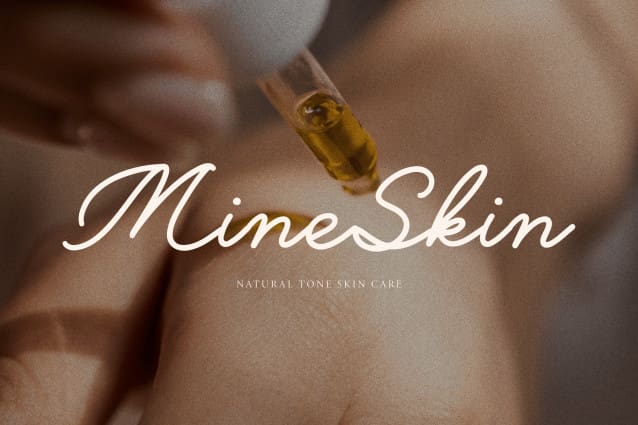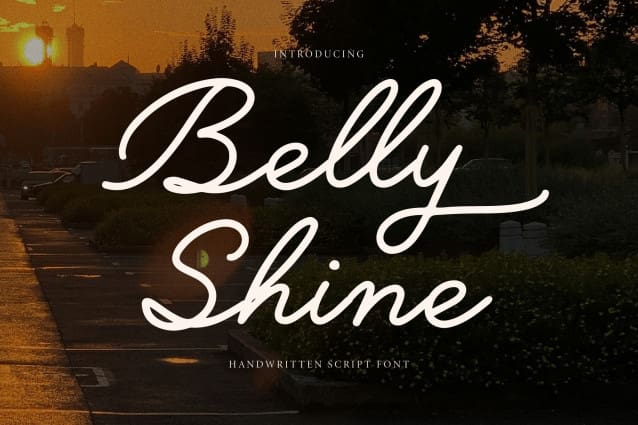
Belly Shine Font
Belly Shine Font | Handwritten Script Font, from Gracetypestudio, suitable for any projects such as: logos, branding projects, homeware designs, product packaging, mugs, quotes, posters, shopping bags, t-shirts, book covers, name card, invitation cards, greeting cards, label, photography, watermark, special events, and all your other lovely projects that need a Handwritten Script Font taste.